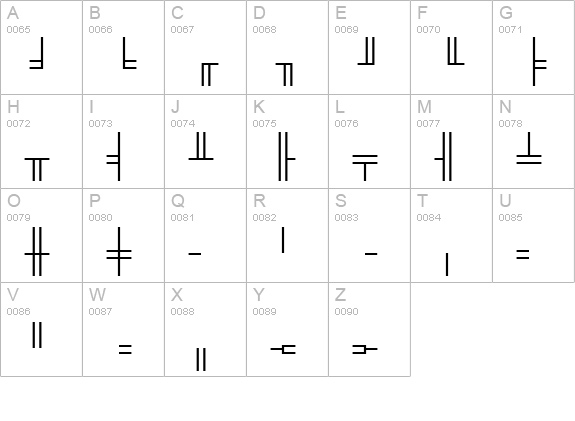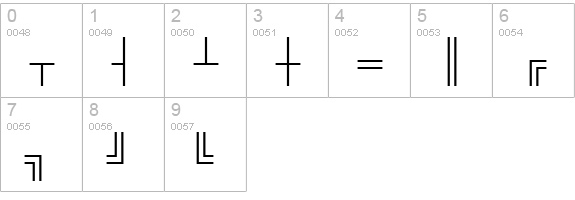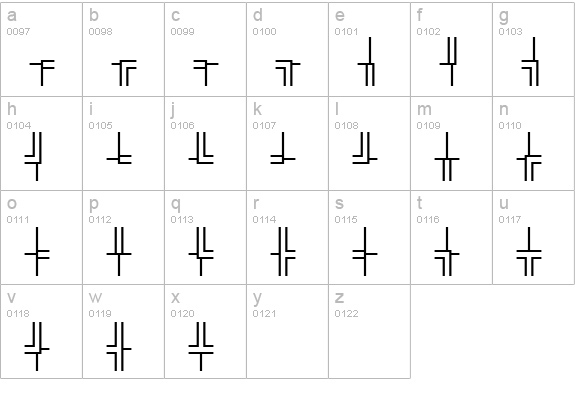
WP BoxDrawing Font Details
WP BoxDrawing font is a captivating and versatile typeface that brings a touch of elegance and sophistication to any design project. This font is perfect for adding a unique and artistic touch to your creative endeavors. With its intricate box-drawing style, WP BoxDrawing font is a visual feast for the eyes. Each character is meticulously crafted to create a seamless and harmonious composition that is both visually appealing and highly legible. One of the most remarkable aspects of WP BoxDrawing font is that it is completely free to download. Whether you are a professional designer or a creative enthusiast, this font offers endless possibilities for your projects without any cost. Thanks to its wide range of weights and styles, WP BoxDrawing font can be easily adapted to suit various design needs. Whether you are working on a logo, a website, a poster, or any other design project, this font will add a touch of sophistication and uniqueness. Downloading WP BoxDrawing font is a breeze, as it is readily available at FontsMarket.com. This user-friendly website offers a wide selection of high-quality fonts, and WP BoxDrawing font is just one of the many gems you can find there. Simply visit the website, locate the font, and download it to start adding a touch of elegance to your designs. In conclusion, WP BoxDrawing font is a stunning and versatile typeface that is freely available to download at FontsMarket.com. Its intricate box-drawing style, combined with its legibility and adaptability, make it an excellent choice for any design project. Don't miss the opportunity to enhance your creations with this beautiful font.